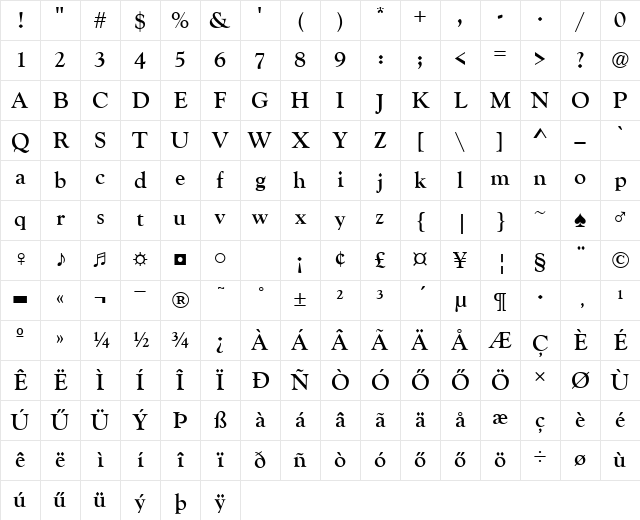
H_Goudy OldStyle Bold
H_Goudy OldStyle Family
Complete H_Goudy OldStyle Bold glyph index. Displaying only characters natively supported by H_Goudy OldStyle Bold font.
Design Context for H_Goudy OldStyle
H_Goudy OldStyle carries the refined structure of traditional serif typography, with bracketed terminals and considered proportions that communicate credibility and craft. Its bold stroke weight gives it real presence on the page.